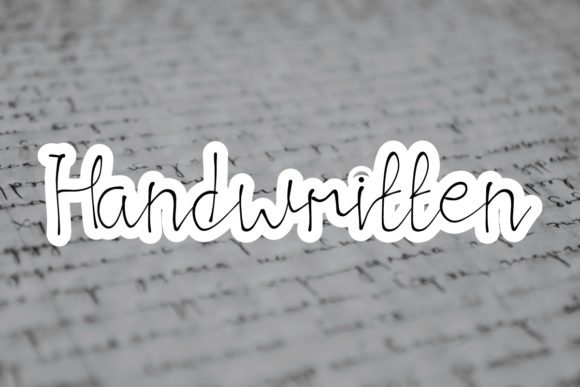
Adding a Touch of Whimsy with Handwritten Font
As a designer, there’s nothing quite like the thrill of creating something new and special. Maybe it’s a holiday card for a loved one, or a custom birthday invitation for a little one’s big day. Whatever the project, there’s something extra magical about adding a personal touch that makes it truly one-of-a-kind.
That’s where Handwritten Font comes in – a simple yet charming handwritten font that captures the essence of a child’s playful handwriting. This adorable font is perfect for adding a touch of innocence and whimsy to your designs, whether you’re writing a letter to Santa or creating a birthday card for a special child.
For designers, the Handwritten Font is a valuable tool for adding a unique and eye-catching element to your projects. Its playful, childlike charm is sure to delight and inspire, making it a must-have addition to any designer’s toolkit.
Key Features of Handwritten Font
- Unique Characteristics: Authentic handwritten feel, elegant and cursive style, and extensive language support
Handwritten Font Review
At first glance, Handwritten Font appears to be a charming and elegant addition to any design project. ✨ The fluid, cursive lines evoke a sense of warmth and personality, making it perfect for titles, headings, and other prominent text elements.
The font also boasts a wide range of styles and variations, allowing designers to experiment with different looks and feels. ✨ From classic to modern, Handwritten Font offers a versatile solution for various design needs.
However, there are a few limitations to consider when working with Handwritten Font. ⚠️ For one, the font can be challenging to read in smaller sizes, particularly in body text. This may require designers to use it sparingly or in conjunction with a more readable font.
- ⚠️ Limited legibility in smaller sizes
- ⚠️ May require additional styling to maintain consistency
Overall, Handwritten Font is a lovely addition to any designer’s toolkit, but it should be used judiciously to avoid readability issues. With careful consideration and styling, this font can add a touch of personality and charm to any design project.
Alternatives to Handwritten Font for Designers
1. Brush Script
Brush Script is a font that mimics hand-painted or brush-written text. It’s ideal for use in creative projects, such as invitations, posters, and advertising materials. When to use: For a more artistic and whimsical look, Brush Script is a great alternative to Handwritten Font.
Comparison: Brush Script has a more fluid and expressive feel compared to Handwritten Font, which can appear more rigid and uniform.
2. Lobster
Lobster is a script font that features a cursive, handwritten style. It’s perfect for use in digital projects, such as websites and mobile apps, where a more modern and elegant look is desired. When to use: For a more sophisticated and refined look, Lobster is a great alternative to Handwritten Font.
Comparison: Lobster has a more refined and polished feel compared to Handwritten Font, which can appear more casual and informal.
Pacifico is a script font that features a clean and elegant style. It’s ideal for use in print projects, such as brochures and business cards, where a more sophisticated look is desired. When to use: For a more classic and timeless look, Pacifico is a great alternative to Handwritten Font.